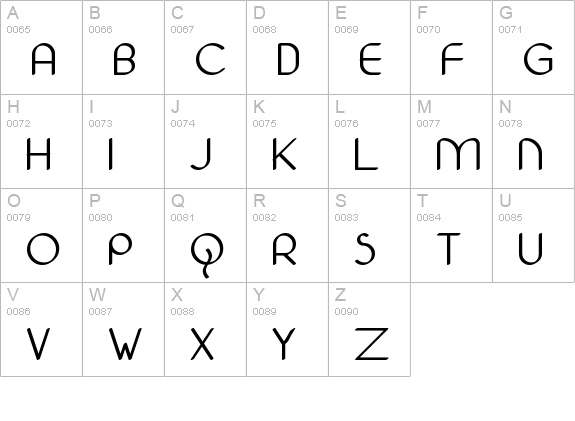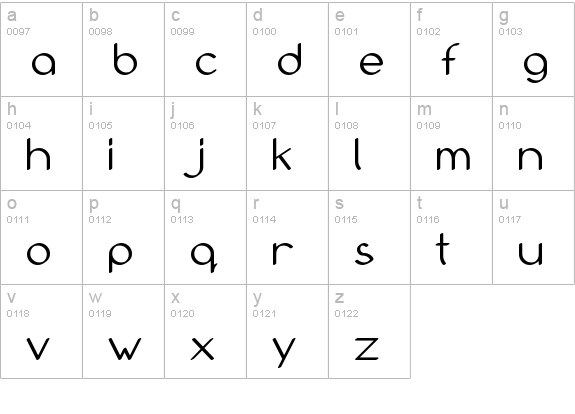
Bolonewt font is a versatile and modern typeface that effortlessly combines elegance with a touch of playfulness. Its sleek lines and rounded edges give it a unique charm that is perfect for a wide range of design projects. Whether you are creating a logo, poster, or website, Bolonewt font will add a sophisticated yet approachable feel to your work. The best part? Bolonewt font is completely free to download at FontsMarket.com. This means you can easily access this stylish font and use it in your projects without any cost. Don't miss out on the opportunity to enhance your designs with the beauty of Bolonewt font – download it today and let your creativity shine!